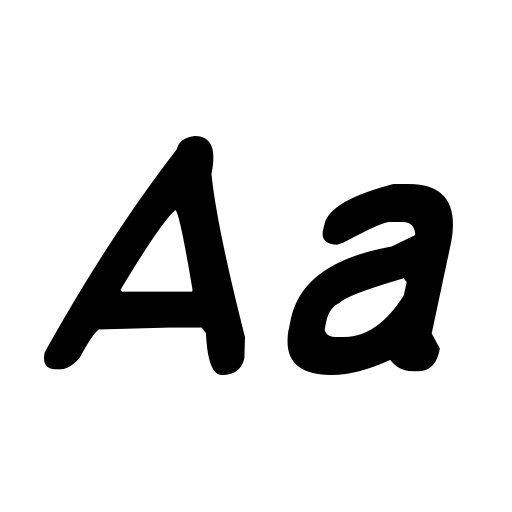
Barter with a Gypsy is a bold, playful handwritten font that brings an informal, energetic vibe with its chunky, rounded strokes and slightly irregular letterforms. Its lively and casual style makes it perfect for creative projects, branding, and headlines needing a friendly, approachable feel that stands out with personality. This font works especially well in contexts where a fun, personal touch is desired, such as posters, social media graphics, and youth-oriented designs.
Barter with a Gypsy Font
About Barter with a Gypsy Font
| Font family | Barter with a Gypsy Font |
| Designer | Font Monger |